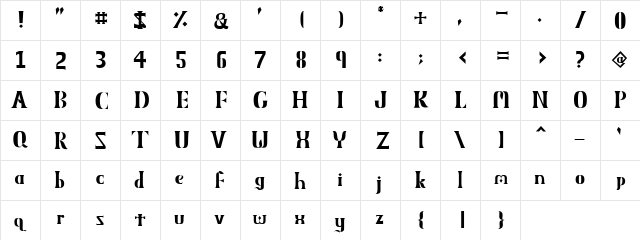
Obelisk MXVV Regular
Design Context for Obelisk MXVV Typeface
Obelisk MXVV is a composed and adaptable typeface that performs quietly and consistently across a wide range of design contexts.